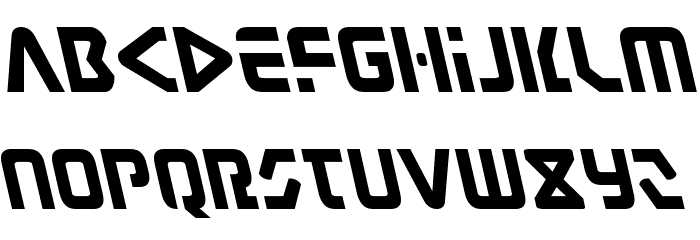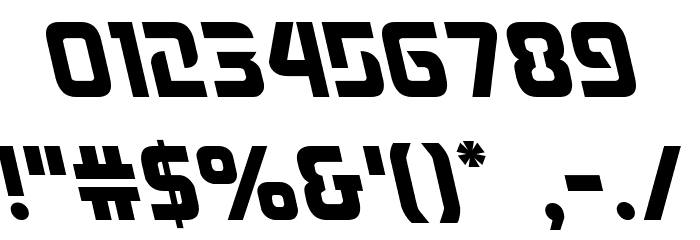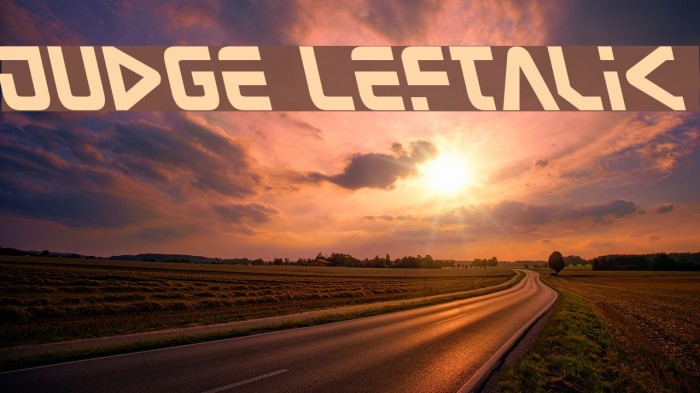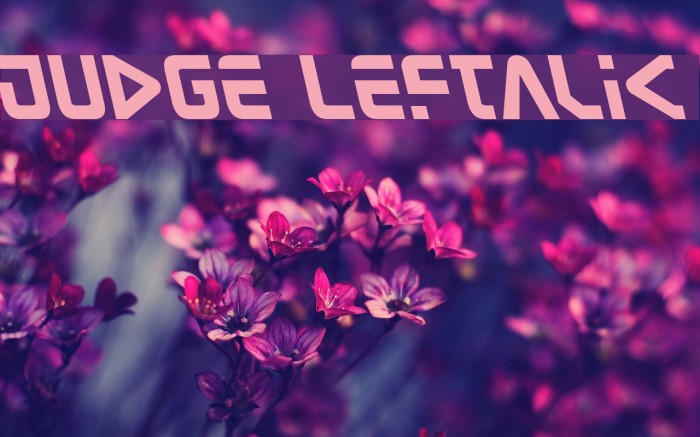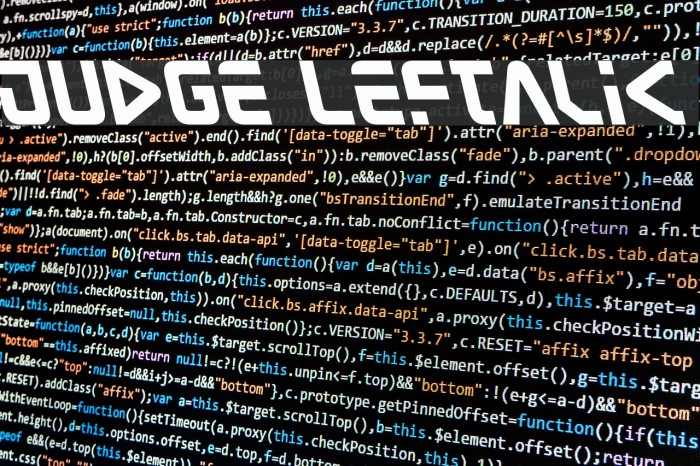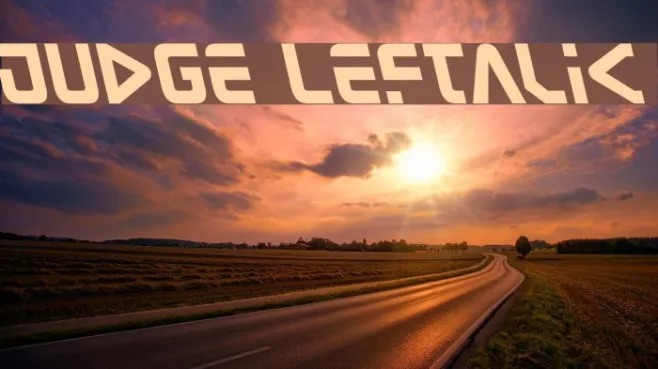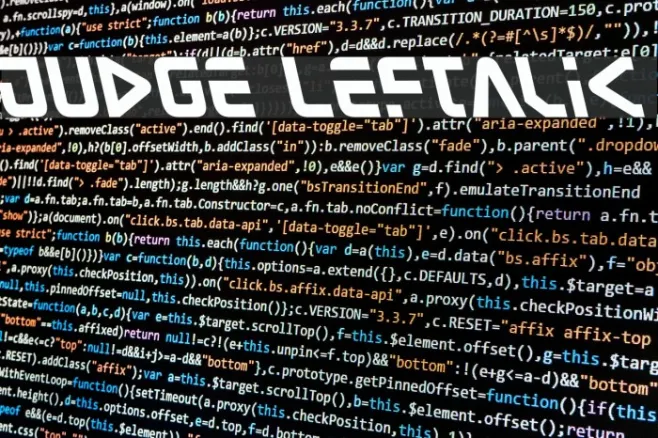
Judge Leftalic Font
This font features a bold and futuristic design with a distinct geometric style. The characters are constructed with sharp angles and clean lines, giving it a modern and edgy appearance. The uppercase and lowercase letters maintain a consistent style, with a unique slant that adds a dynamic feel. The numbers and special characters follow the same design principles, ensuring uniformity across all glyphs. The font's bold weight and high contrast make it highly legible and impactful, suitable for attention-grabbing headlines and logos. Its unique style is ideal for projects that require a modern and technological aesthetic.
A bold, futuristic font with geometric angles and a dynamic slant.
- Font: Judge Leftalic
- Proposed Projects: Ideal for technology branding, sci-fi themed designs, video game titles, and modern advertising.